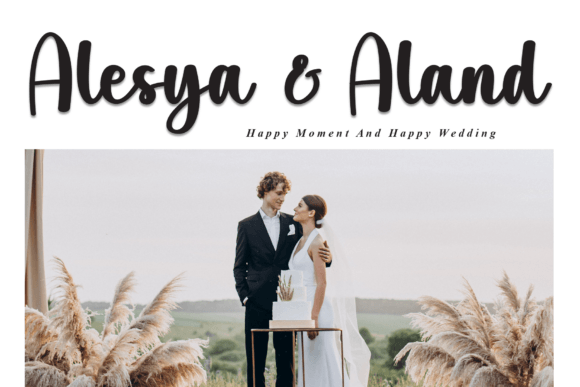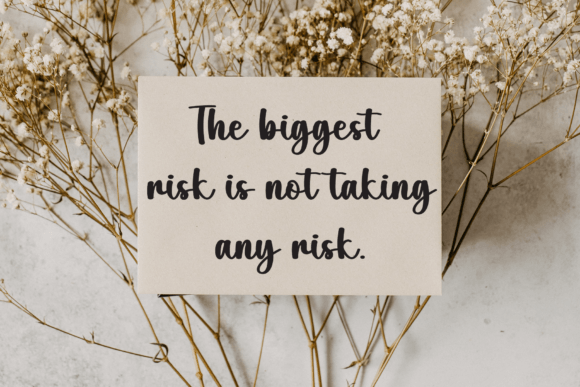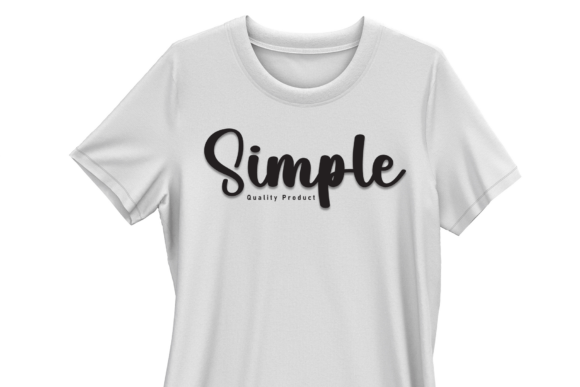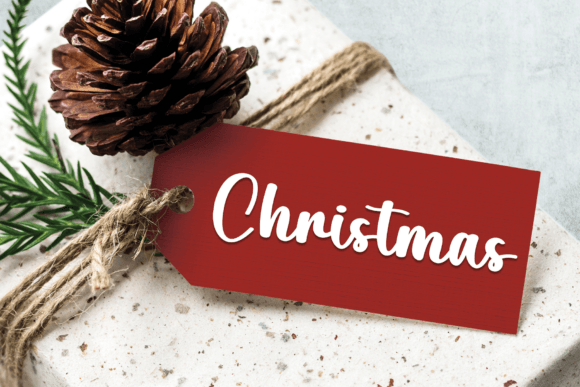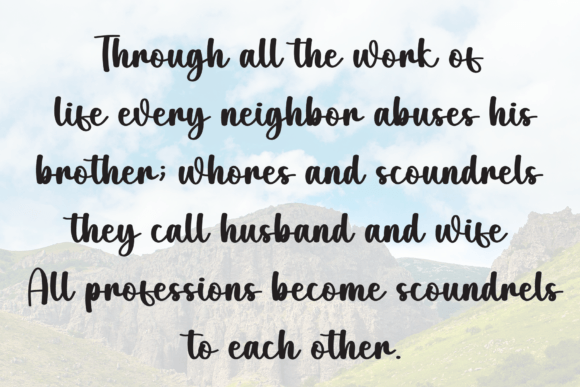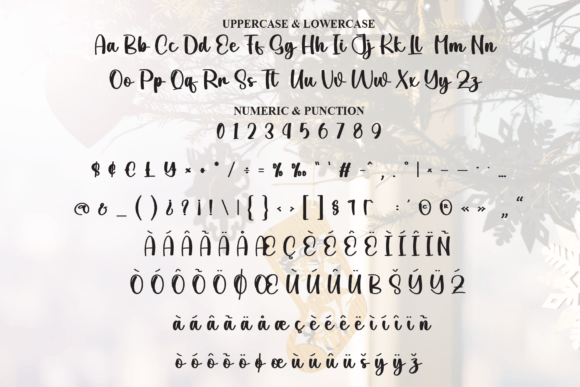
Introducing Christmas Daylight Font: The Perfect Addition to Your Festive Designs
Are you looking for a font that embodies the spirit of joy and cheerfulness this holiday season? Look no further than Christmas Daylight Font, a delightful handwritten display font that’s sure to add a touch of magic to your creative projects. With its sweet and friendly style, this font is perfect for designers and crafters who want to create captivating wedding invites, heartwarming greetings cards, and other designs that require a jolt of joy.
The Charm of Christmas Daylight Font
Christmas Daylight Font boasts a cute and playful vibe that’s sure to infuse your work with fun and warmth. Its charming and cheerful style makes it an excellent choice for a variety of design projects, from festive holiday cards to whimsical wedding invitations. Whether you’re a designer, crafter, or DIY enthusiast, this font is sure to become your go-to choice for adding a personal touch to your creations.
Perfect for Festive Designs
Christmas Daylight Font is specifically designed to bring a sense of joy and festivity to your designs. Its sweet and friendly style makes it perfect for:
- Wedding invitations: Add a touch of whimsy and romance to your wedding invites with this delightful font.
- Greetings cards: Create heartwarming holiday cards that will make your loved ones feel special.
- Holiday decor: Use this font to create festive decorations, such as garlands, banners, and signs.
- Social media graphics: Add a dash of cheer to your social media posts with this fun and playful font.
Key Features of Christmas Daylight Font
Here are some of the key features that make Christmas Daylight Font a standout choice for your design projects:
- Handwritten style: This font boasts a charming, handwritten style that’s perfect for adding a personal touch to your designs.
- Cute and playful vibe: The font’s sweet and friendly style makes it perfect for creating designs that require a jolt of joy.
- Easy to read: Despite its playful style, Christmas Daylight Font is easy to read, making it perfect for use in a variety of design projects.
- Versatile: This font can be used for a wide range of design projects, from festive holiday cards to whimsical wedding invitations.
Christmas Daylight Font is a delightful handwritten display font that’s perfect for adding a touch of joy and cheerfulness to your design projects. With its sweet and friendly style, this font is sure to become your go-to choice for creating captivating wedding invites, heartwarming greetings cards, and other designs that require a jolt of joy. So why wait? Download Christmas Daylight Font today and start adding a touch of magic to your creative projects!